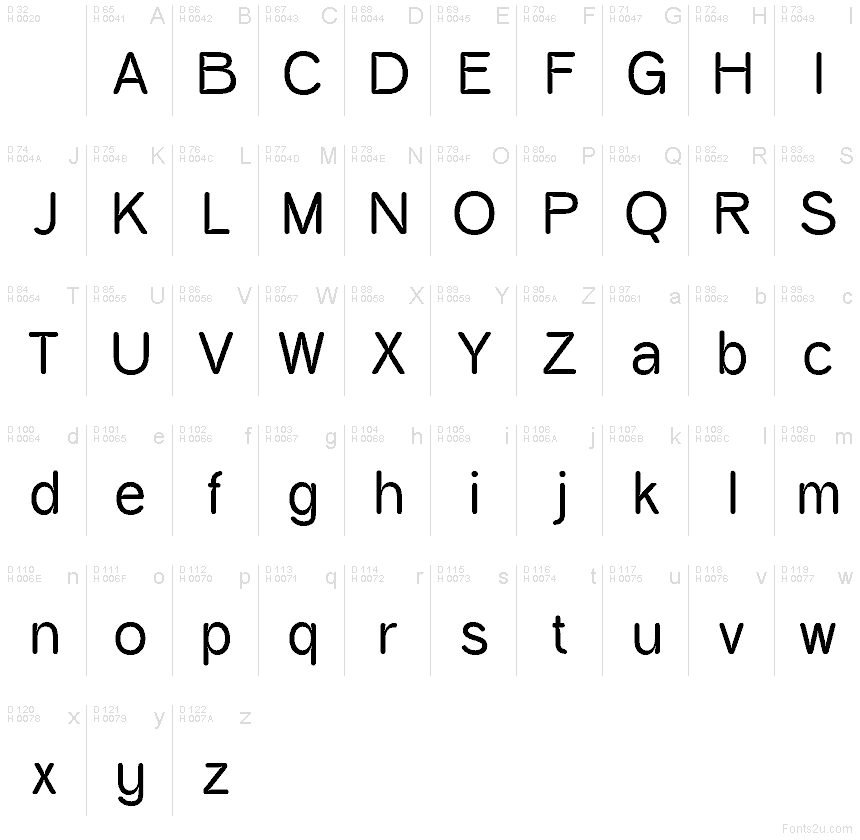
RaventyRounded-Regular Demo
Raventy Rounded font by Craft Supply Co. showcases a sleek, modern design with minimalistic flair. This free sans serif font is both friendly and approachable, offering an aesthetic touch to your creations.
Raventy is perfect for packaging, websites, apps, logos, labels, headlines, social media posts, magazines covers, stationery designs and much more. Use it to add style across any communication medium whether printed on paper or displayed online.